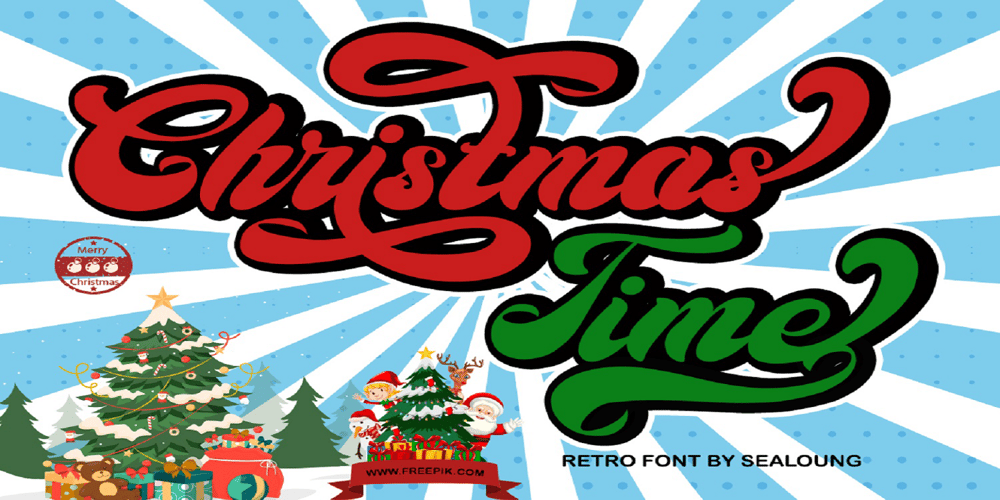
Time Christmas
Time Christmas font
Time Christmas Font Family was designed by Saiful Anwar and published by Sealoung. Time Christmas contains 1 styles and family package options. Christmas Time is a flowing and festive handwritten font. With a retro style and a warm feel, this font will make each of your holiday cards and designs look outstanding!